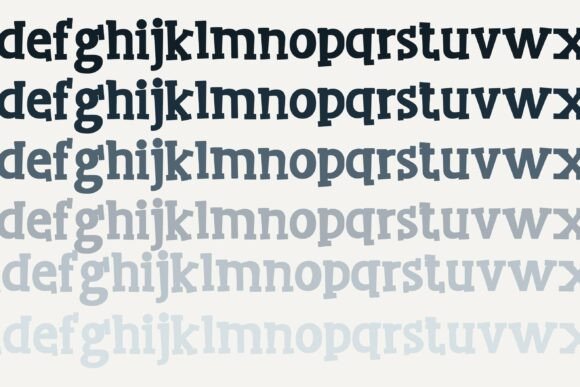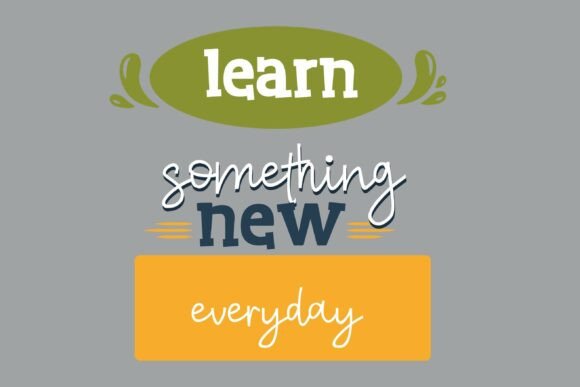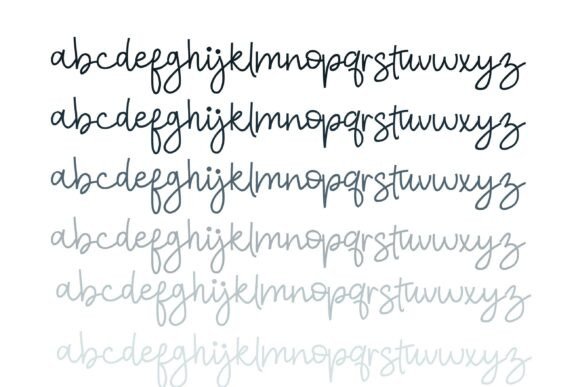
Introduction to Pork City and Gilbert Duo Font
As a designer, have you ever stumbled upon that perfect combination of fonts that instantly elevates your creative project? It’s like stumbling upon a hidden treasure – a harmonious union of styles that adds depth and visual interest to your design. For me, that moment came when I discovered the delightful Pork City and Gilbert Duo Font.
This charming duo is more than just a design resource; it’s a game-changer for any designer looking to add a touch of personality to their work. The pairing of a casual handwritten script (Gilbert) with a bold, crafty serif (Pork City) creates a unique and high-quality design element that’s perfect for a wide range of applications, from children’s books to product packaging.
With its transparent background and free download option, this design duo is a must-have for any creative project. Whether you’re looking to add a pop of boldness or a relaxed, friendly feel, Pork City and Gilbert Duo Font is the perfect addition to your design arsenal.
Key Features of Pork City and Gilbert Duo Font
- High-quality design resource for creative projects, offering a unique and stylish aesthetic.
- Includes two font styles: Pork City and Gilbert Duo, providing versatility for different design applications.
- Designed with a high resolution, ensuring crisp and clear typography even at larger font sizes.
- Perfect for use in graphic design, digital art, and other creative projects where a distinctive and modern font is required.
Honest Review: Pork City and Gilbert Duo Font
I recently had the chance to work with the Pork City and Gilbert Duo Font, and I must say it’s been a game-changer for my creative projects. As a designer, I’m always on the lookout for high-quality design resources that can elevate my work, and this font definitely fits the bill.
One of the things I love about the Pork City and Gilbert Duo Font is its versatility. The transparent background allows for seamless integration into any design, making it perfect for logos, branding materials, and even digital art.
Here are some things that work well with the Pork City and Gilbert Duo Font:
- ✨ High-quality design: The font is crisp, clear, and professional-looking.
- ✨ Versatile: Can be used for a variety of creative projects, from logos to digital art.
However, I do have one limitation to note:
- ⚠️ Limited character set: While the font is high-quality, it may not have the same level of character depth as some other fonts.
Overall, I’m really impressed with the Pork City and Gilbert Duo Font. It’s a valuable addition to any designer’s toolkit, and I highly recommend it for any creative project.
Pork City and Gilbert Duo Font
Tips for Getting the Most Out of Pork City and Gilbert Duo Font
For the best results, use the Pork City and Gilbert Duo Font with a transparent background to ensure the font stands out against any image or design element.
The Pork City and Gilbert Duo Font is suitable for a variety of creative projects, including logo design, branding, and marketing materials.